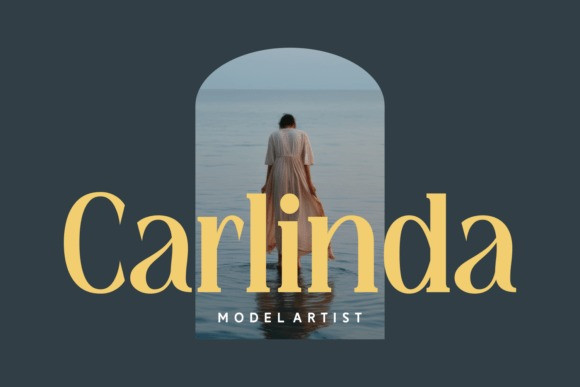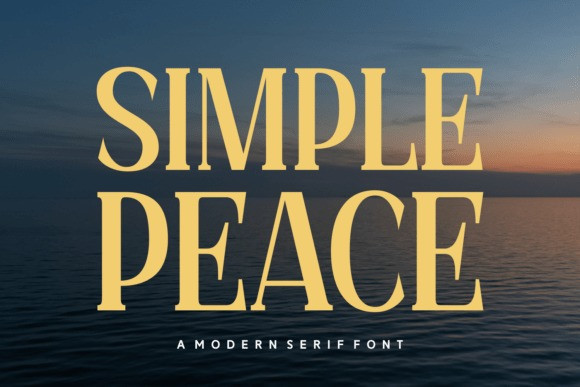
Simple Peace Font
Simple Peace Font, a modern serif font. The serene and peaceful atmosphere of the background perfectly complements the font’s clean, elegant, and classic design.